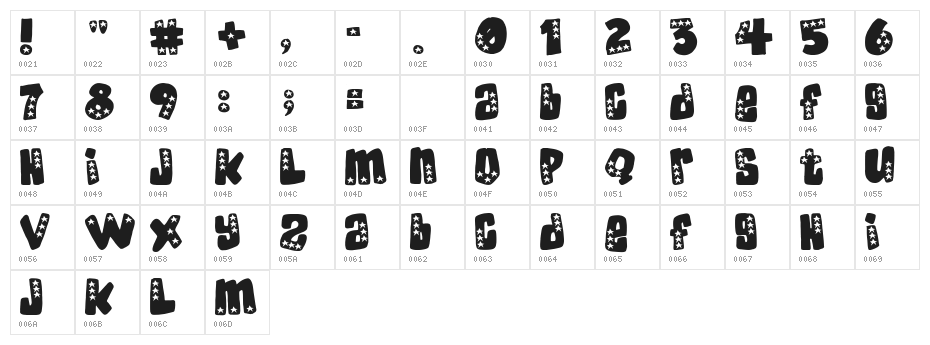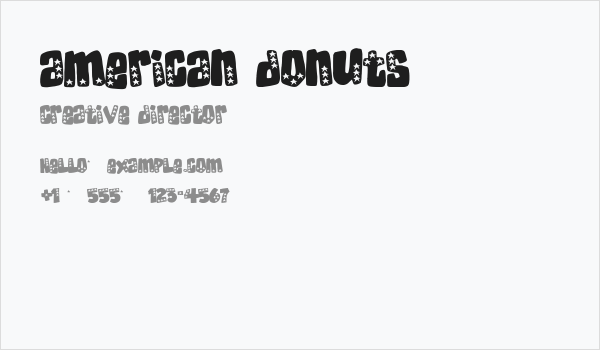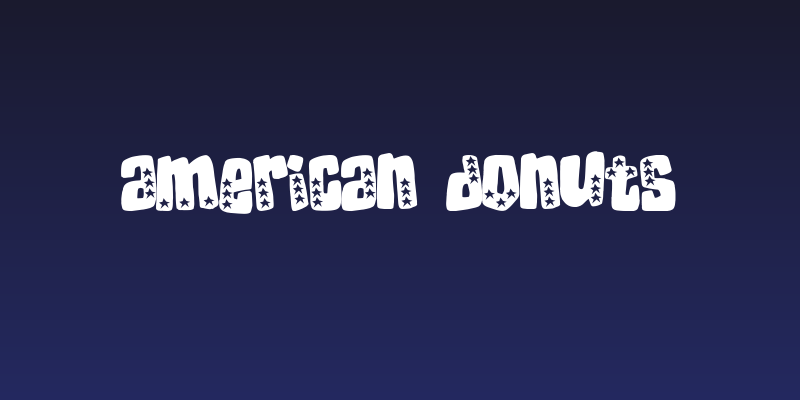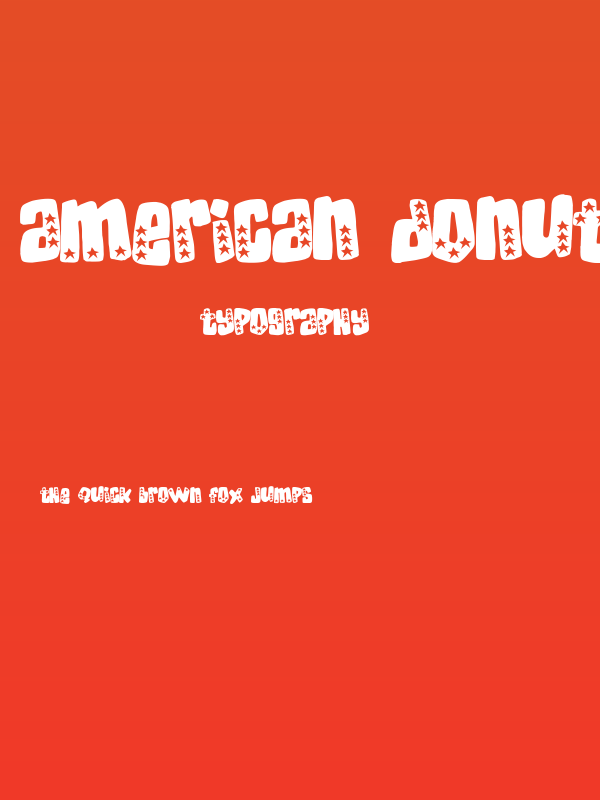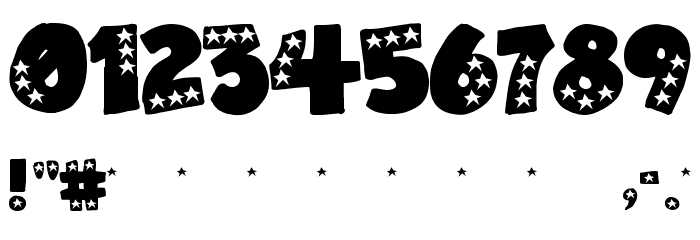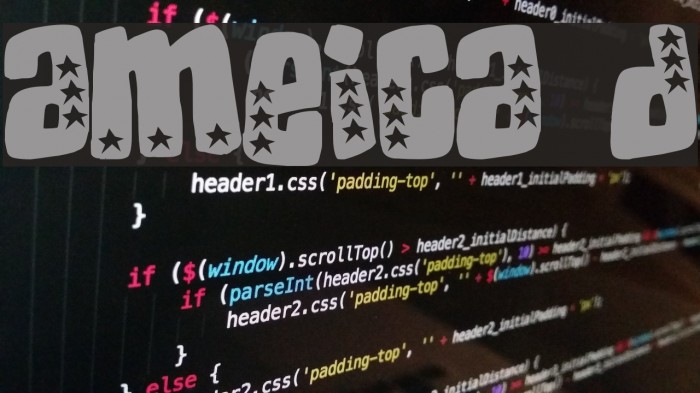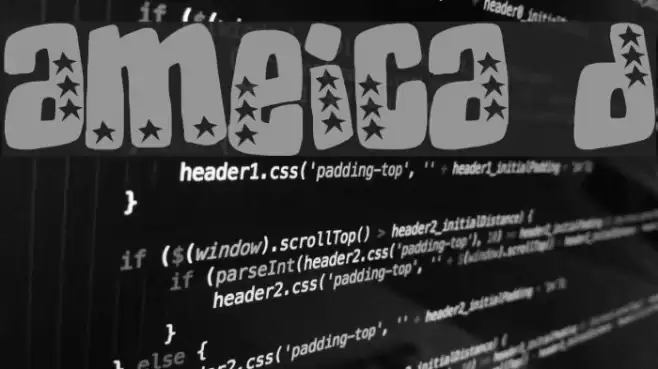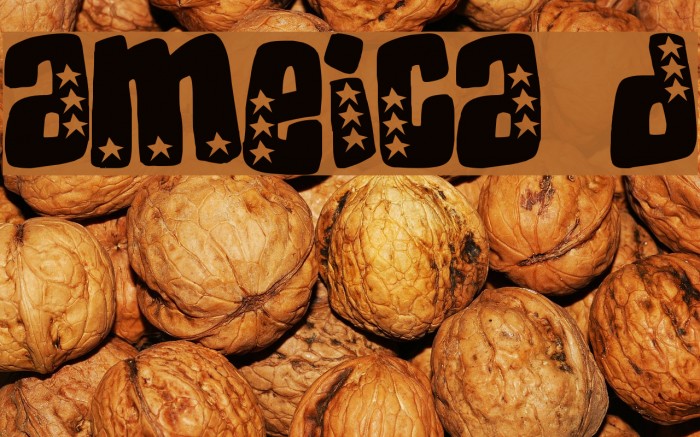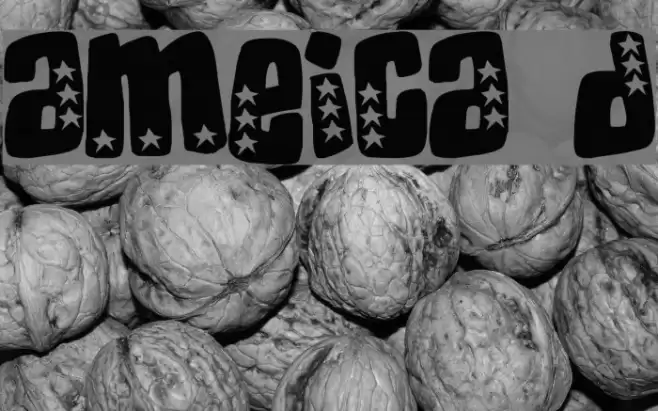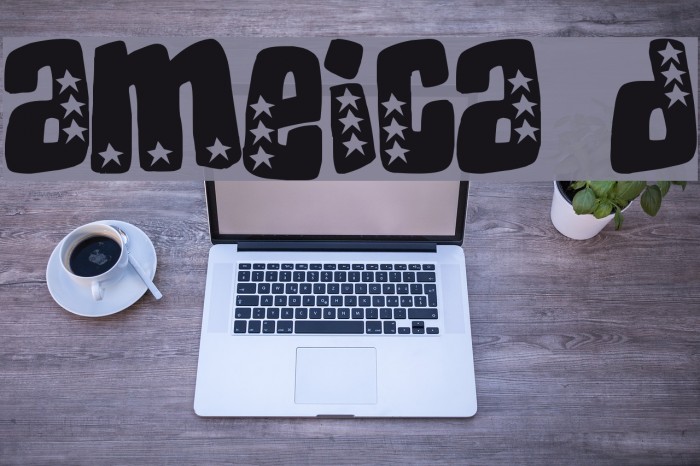
American Donuts Font
| Категория | Decorative |
| Общий стиль | Playful, Whimsical |
| Область применения | Headlines, Logos, Decorative Text |
| Рекомендуемые проекты | Ideal for children's books, party invitations, playful branding, and any project requiring a fun, engaging look. |